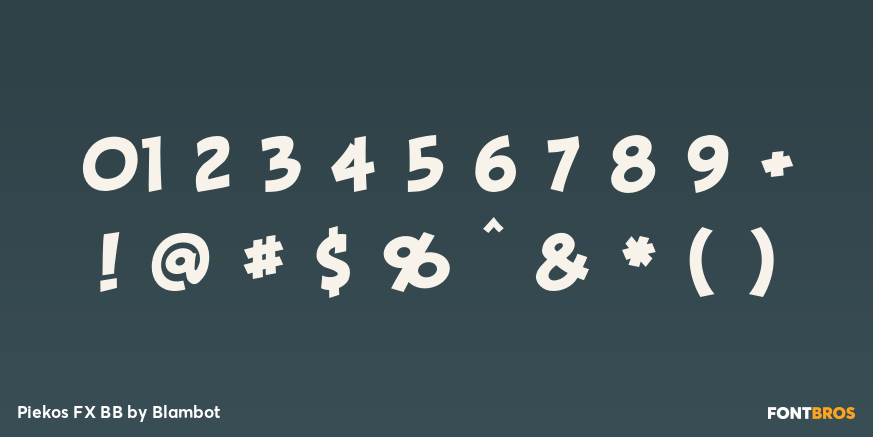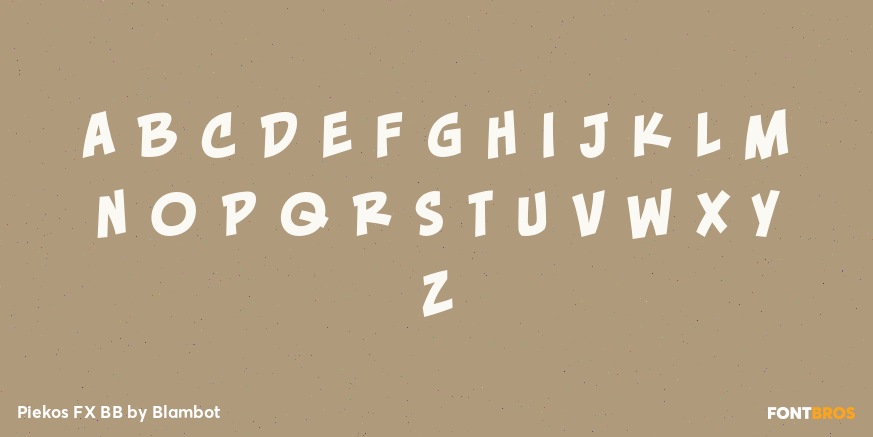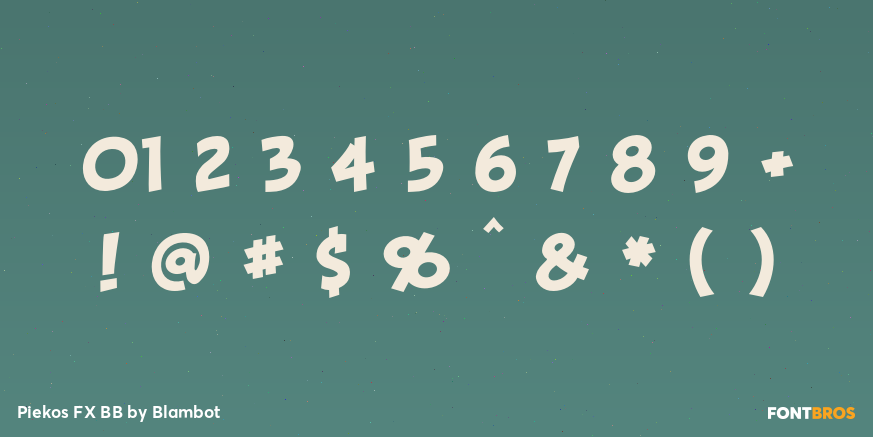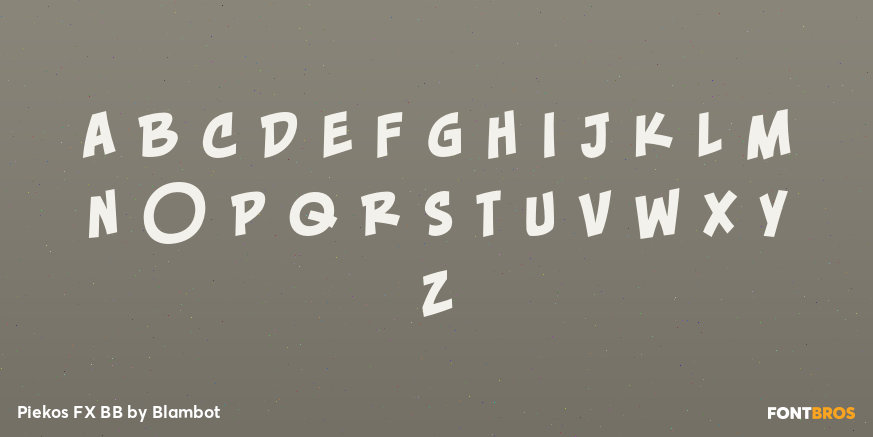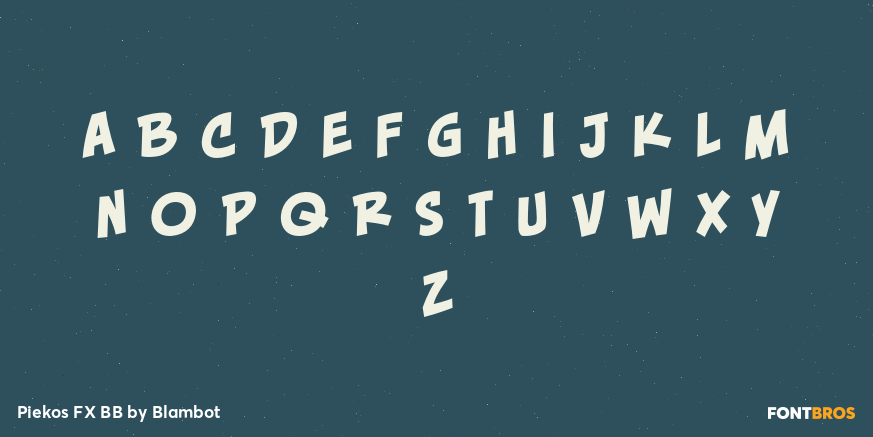
Piekos FX BB
Font Family by Blambot
Formerly one of comic letterer, Nate Piekos' custom fonts, PIEKOS FX is available to the public for the first time. It is an all-purpose sound effects font that comes with Basic, Basic Italic, Condensed, Condensed Italic, Thin, and Thin Italic.